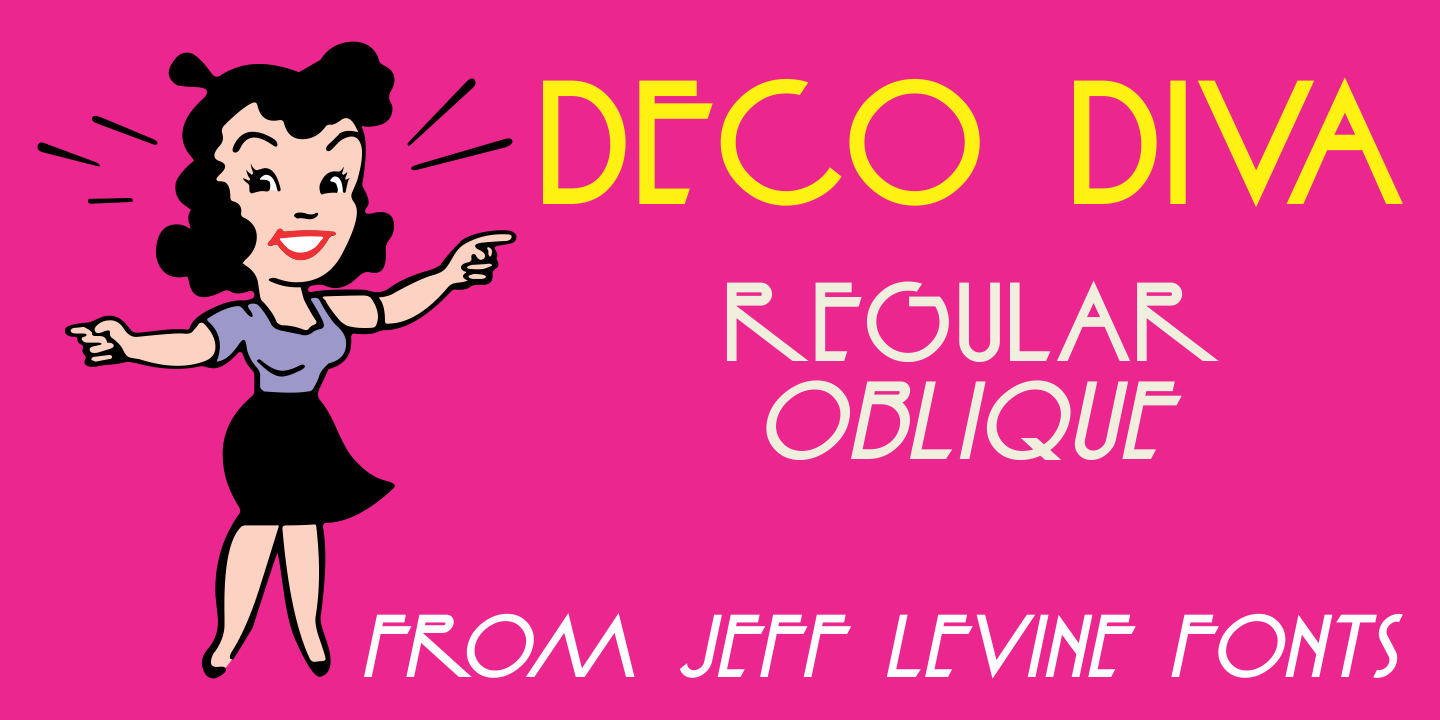
Deco Diva JNL Font is ideal for glamorous design projects including Art Deco exhibitions, vintage fashion boutiques, retro luxury brands, 1920s themed events, jazz age celebrations, vintage Hollywood productions, classic elegance venues, and sophisticated heritage campaigns. This stunning typeface works perfectly for vintage jewelry stores, classic cocktail lounges, period interior design studios, vintage luxury hotels, and projects that celebrate the opulent glamour and artistic sophistication of the Art Deco era.
What makes Deco Diva JNL Font exciting is its glamorous Art Deco character that perfectly captures the essence of jazz age elegance and vintage Hollywood sophistication. The font features geometric letterforms with luxurious styling that reflects the bold glamour and artistic innovation of the 1920s design movement. Its dazzling design elements embody the spirit of vintage luxury and cultural refinement, making it perfect for projects that need to convey glamour, sophistication, and connection to Art Deco heritage. The carefully crafted deco details create an atmosphere of vintage elegance and timeless sophistication.
Deco Diva JNL Font comes in multiple family variations including glamorous, elegant, luxurious, and vintage styles. Each weight maintains the distinctive Art Deco character while offering different levels of glamour intensity and vintage presence. The font family includes deco alternates, glamorous ligatures, and vintage variations that provide designers with comprehensive options for creating truly sophisticated and authentically period typographic compositions that celebrate Art Deco elegance.
Whether you're designing vintage branding, creating glamorous marketing materials, or developing Art Deco promotional graphics, Deco Diva JNL Font Free Download provides the perfect typographic foundation for projects that celebrate vintage excellence and Art Deco sophistication. This magnificent typeface transforms ordinary text into compelling expressions of jazz age glamour and vintage elegance. Download this dazzling font today and glamorize your design projects with the Art Deco sophistication and vintage luxury that captures the eternal appeal of 1920s elegance and cultural refinement.